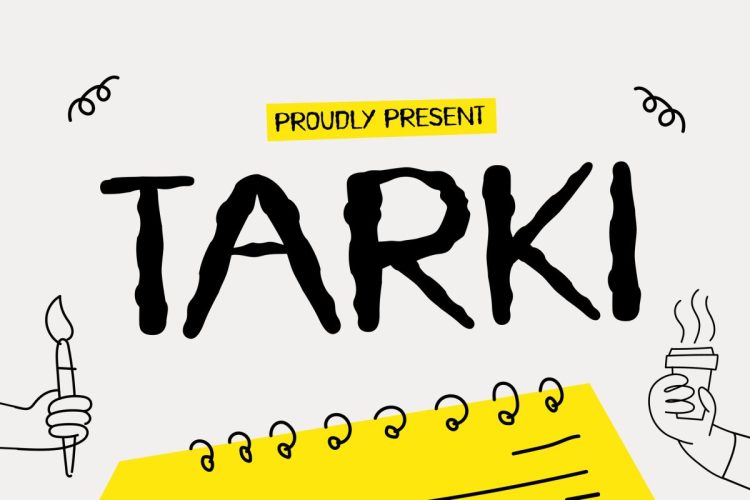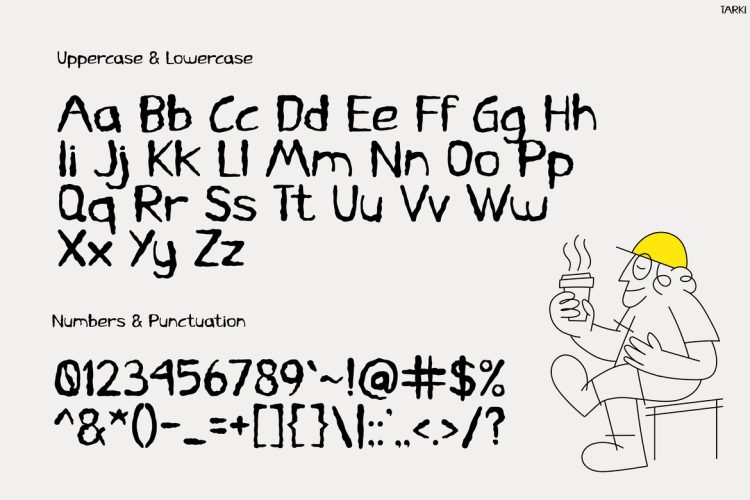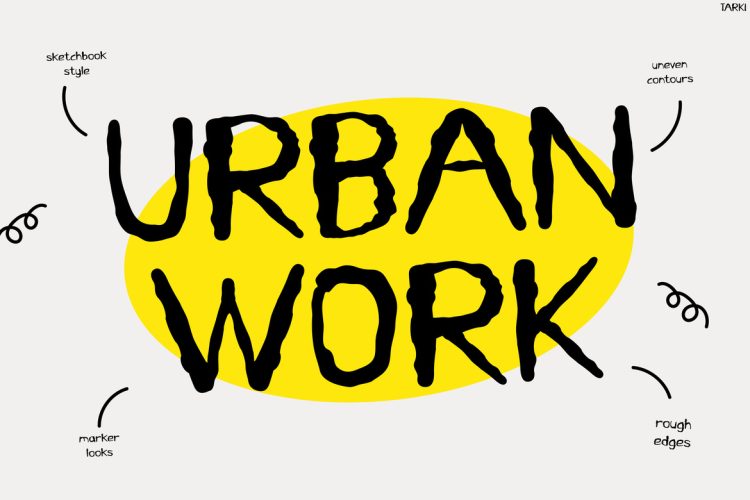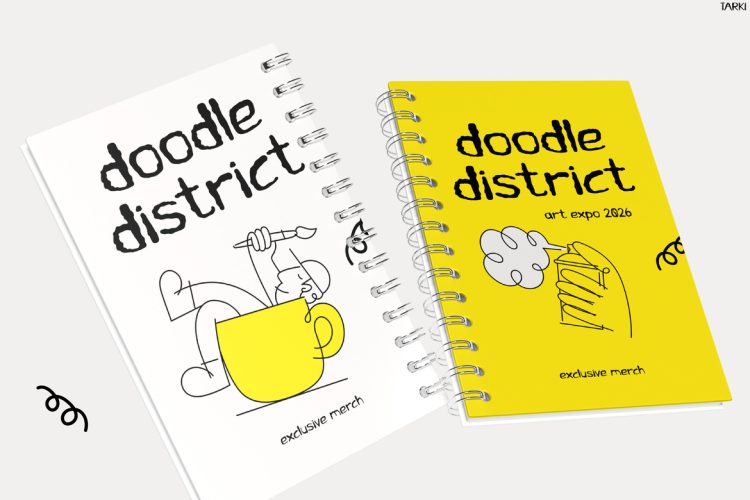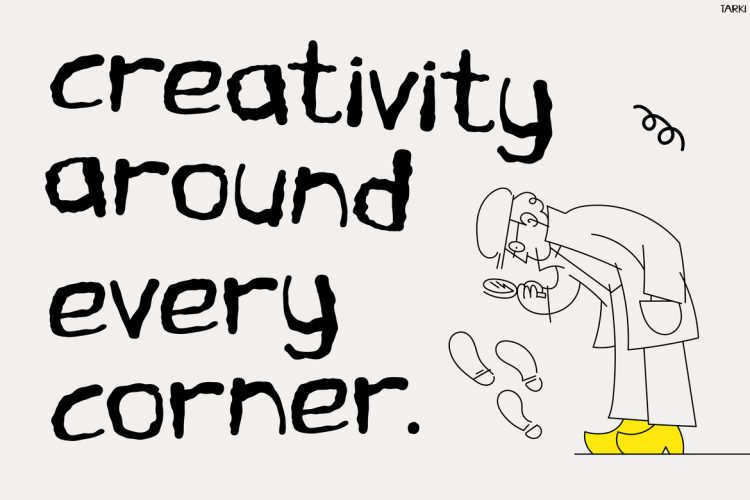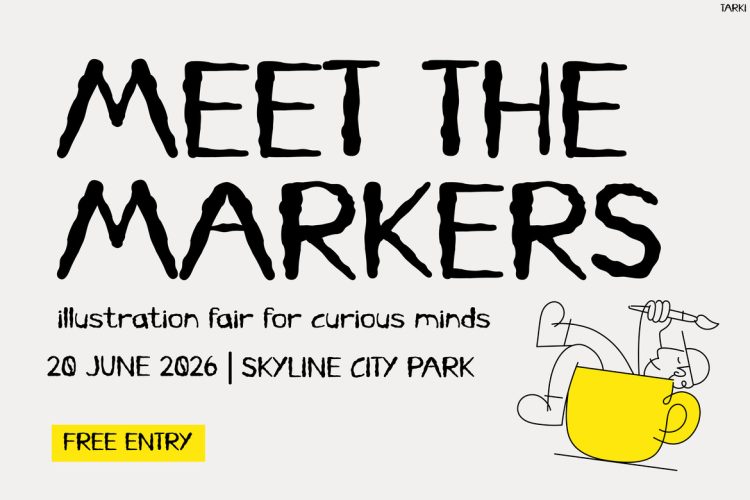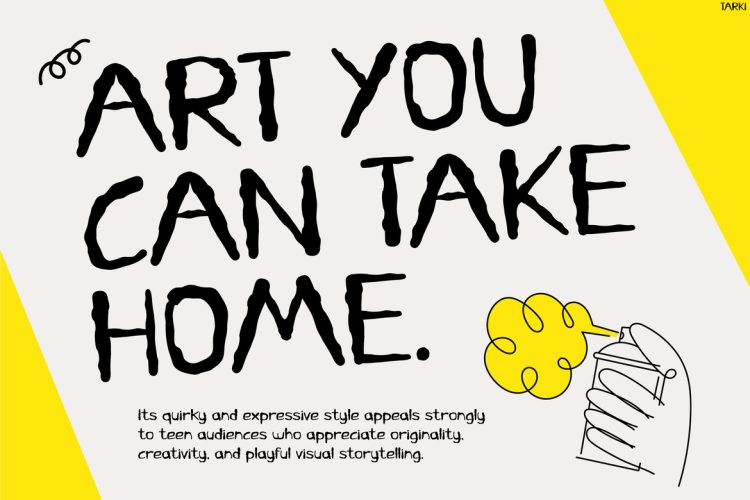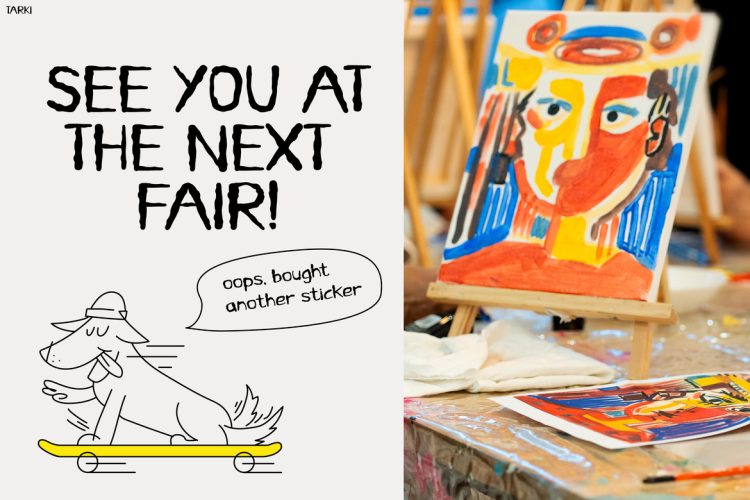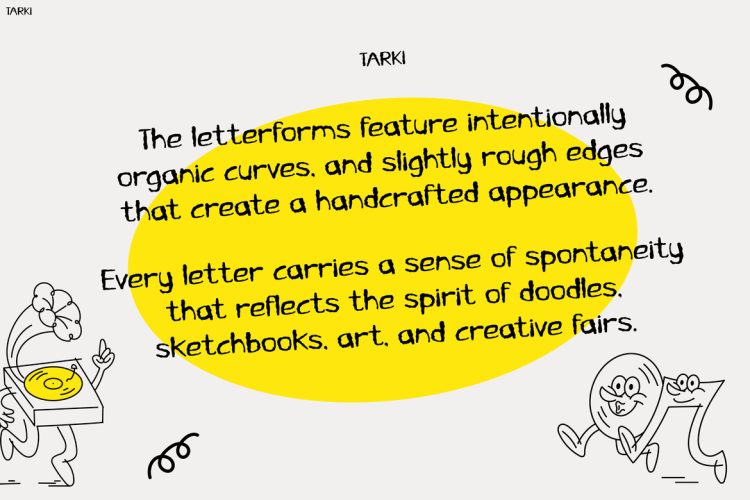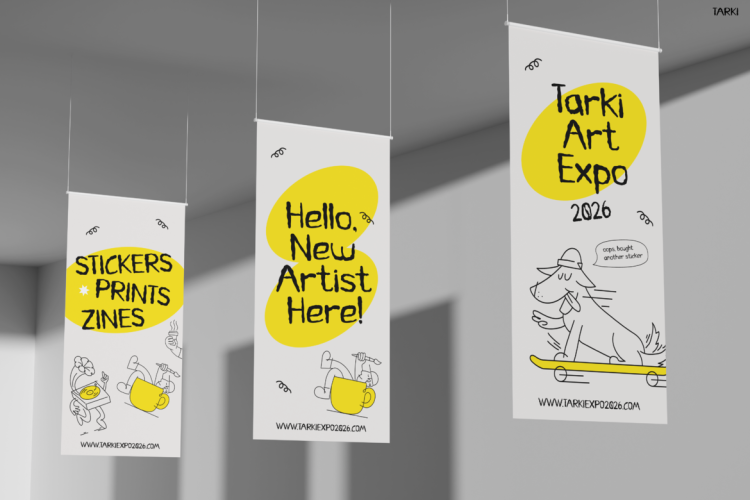
Handwriting Font Tarki โ Raw Handwriting Font for Creative Rebels
Handwriting Font Tarki brings an expressive handwritten look with rough strokes, playful imperfections, and an authentic doodle-inspired character. Furthermore, the font captures the spontaneous feel of hand-drawn lettering, making every design look more personal and artistic. Because of its organic shapes and slightly uneven structure, Tarki delivers a bold creative personality that instantly stands out. In addition, the casual handwritten aesthetic creates a relaxed and approachable vibe while maintaining strong readability. As a result, posters, branding, social media graphics, and creative campaigns feel more unique, energetic, and memorable.
Moreover, Tarki perfectly blends urban creativity with handcrafted charm, so it works beautifully for projects that need a fresh and unconventional look. Whether you are designing art festival posters, creative branding, event promotions, or lifestyle content, this font adds character and authenticity to every layout. Therefore, Tarki is an excellent choice for designers who want typography that feels expressive, modern, and full of artistic freedom.
Handwriting Font Tarki Perfect For Creative Projects
Best Used By:
- Creative agencies
- Art festival organizers
- Event promoters
- Streetwear brands
- Poster designers
- Lifestyle content creators
- Small business owners
- Social media marketers
- Handmade product brands
Additionally, Tarki performs beautifully across both print and digital applications because of its versatile handwritten style. Consequently, your branding can feel more authentic, artistic, and attention-grabbing.
Turn Ideas Into Visual Statements